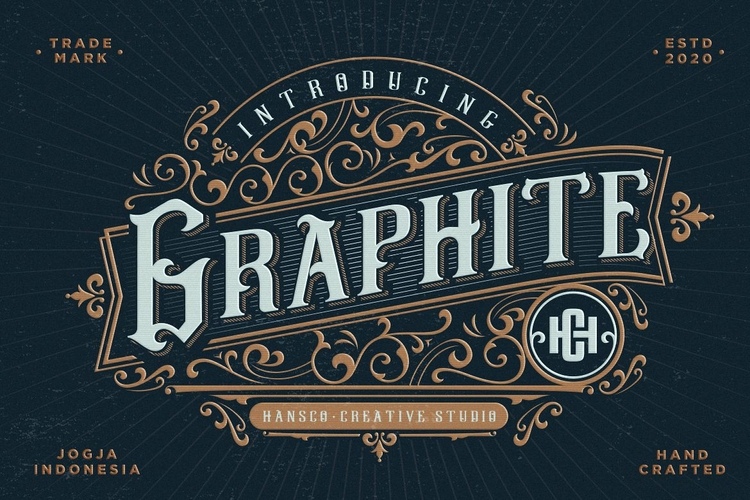
Graphite Font
Graphite Font is perfect for industrial design branding, architectural firm identities, technical documentation, engineering communications, manufacturing company materials, precision instrument marketing, carbon fiber product packaging, and professional technical advertising. This mineral-inspired typeface works exceptionally well in both digital applications and print media where structural integrity and technical precision are fundamental design requirements.
What makes Graphite Font so exciting is its masterful interpretation of carbon's crystalline structure and industrial utility through precisely engineered letterforms that embody the same molecular strength and technical precision found in this essential element of modern industry. The font features structured characters with atomic proportions, crystalline edges, and technical details that communicate durability, precision engineering, and the fundamental building blocks of advanced materials technology. Its technical personality and industrial heritage make it ideal for brands seeking to establish authority in precision industries while appealing to audiences who value structural excellence and the fundamental science behind advanced manufacturing.
The Graphite Font family includes multiple weight variations with different density levels, along with technical alternates and industrial ornamental elements. Each style maintains the typeface's structural character while offering comprehensive character sets including precision numerals, technical punctuation marks, and special symbols designed to enhance engineering communications and industrial branding efforts across various technical contexts.
This remarkable typeface represents the perfect convergence of molecular science and contemporary typography for engineering and manufacturing industries. Whether you're developing precision instrument identities, creating technical documentation materials, or designing advanced materials marketing, Graphite Font Free Download delivers the technical authority and versatility needed for successful engineering communications. The font's crystalline approach makes it particularly effective for engineering firms, manufacturing companies, technical research organizations, and businesses prioritizing precision, durability, and the advanced science of materials engineering.
The meticulously engineered molecular construction and optimized technical performance in Graphite Font ensure maximum structural integrity while maintaining clear communication across all industrial applications. Its crystalline presence makes it ideal for technical branding, precision marketing materials, and engineering communications where its full graphite character can create lasting credibility with audiences seeking structural excellence and the fundamental precision that defines advanced technical industries.